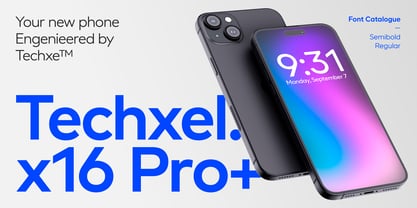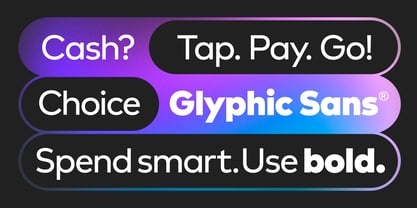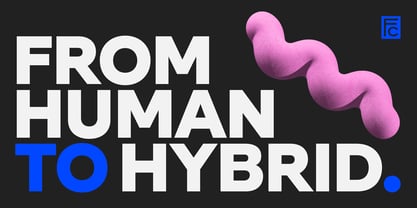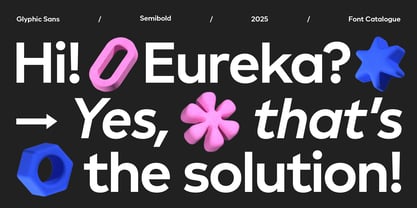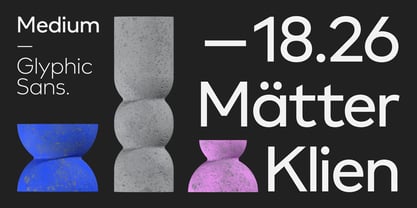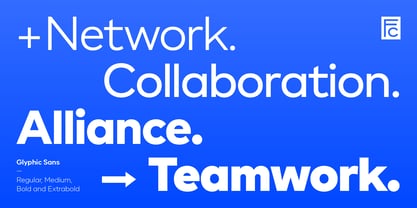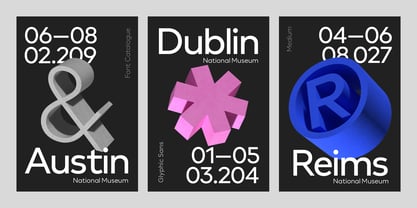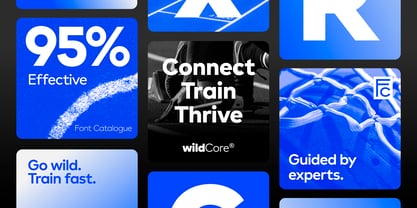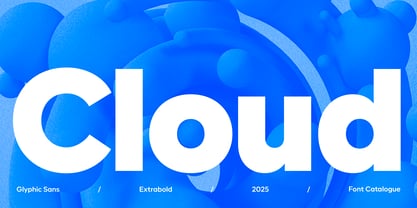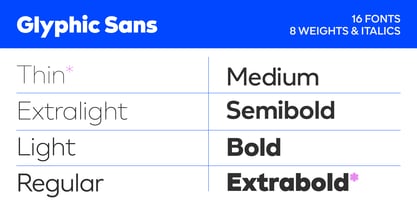
Glyphic Sans
by Font Catalogue
The Glyphic Sans Font Family was designed by Luciano Vergara, Jorge Cisterna, Daniel Hernández, Felipe Sanzana and published by Font Catalogue. Glyphic Sans contains 16 styles and family package options.
Designed to be sharp, precise for growth. Glyphic Sans is a sans serif that lives at the intersection of technical and human. Built on geometric proportions, this typeface incorporates subtle humanist inflections that give it personality without sacrificing clarity—especially visible in the extended strokes and elegant diagonals of K, Q, y, k, and other distinctive characters. These subtle refinements make it more striking, yet always contained. With eight weights—including a particularly bold Black—and refined details and balanced structure, it's the natural choice for fintechs, banking brands, and technology companies looking to project trust, innovation, and sophistication. From logos to digital interfaces, Glyphic Sans communicates professionalism with a distinctive touch. Originally conceived for short wordmarks—where its details shine with greater intensity—this typeface proves equally versatile in longer text settings, maintaining legibility and visual rhythm across editorial applications, corporate presentations, and digital campaigns. It's not cold, but it's not effusive either. Glyphic Sans has authority without distance, and elegance without affectation.